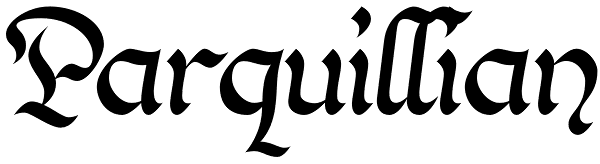
Parquillian
Parquillian is a calligraphic display face with good legibility. It is based on a hand using elements of Italic, Gothic and Fraktur, developed for creating wedding certificates. It has numerous ligatures and alternates with subtle yet elegant...